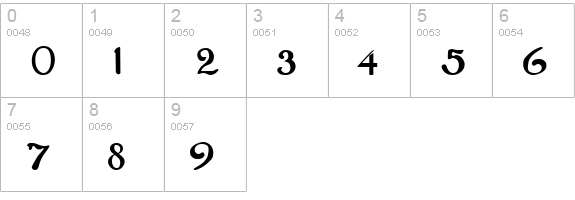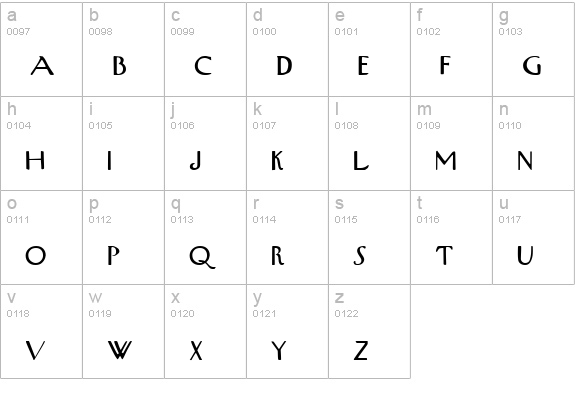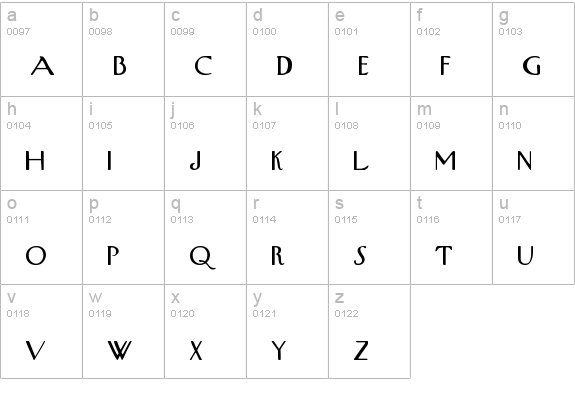
Upper-WestSide Regular is the standard, neutral variant in the Upper typeface family \xE2\x80\x94 well suited to general body text, paragraphs, and standard typographic work.
The Upper-WestSide Regular font is a classic and elegant typeface that exudes sophistication and charm. Its sleek and refined design makes it perfect for a variety of projects, from branding and logos to invitations and headlines. With its clean lines and balanced proportions, this font effortlessly captures attention and adds a touch of class to any design. What sets Upper-WestSide Regular font apart is that it is freely available to download at FontsMarket.com. This means that you can easily access this stunning typeface without any cost or limitations. Whether you are a professional designer or a hobbyist, having the ability to use this font for free opens up endless creative possibilities. The versatility of Upper-WestSide Regular font is truly remarkable. Its timeless appeal makes it suitable for both modern and vintage-inspired designs. It pairs beautifully with both serif and sans-serif fonts, allowing you to create visually stunning combinations. Whether you are working on a website, a print project, or even a personal project, this font is sure to elevate your designs to new heights. The attention to detail in the Upper-WestSide Regular font is evident in every letterform. Each character is meticulously crafted to ensure optimal legibility and visual harmony. The proportions are carefully balanced, resulting in a font that is pleasing to the eye and easy to read. The clean lines and gentle curves give the font a sense of elegance and sophistication, making it a perfect choice for high-end designs. With its wide range of glyphs and characters, Upper-WestSide Regular font is suitable for multilingual projects. Whether you need to include accents, diacritical marks, or special characters, this font has you covered. Its extensive character set ensures that you can create professional-looking designs in any language. In conclusion, the Upper-WestSide Regular font is a stunning typeface that combines classic elegance with modern versatility. Its sleek design and attention to detail make it a perfect choice for a wide range of projects. And the best part? It is freely available to download at FontsMarket.com. So why wait? Enhance your designs with this timeless font today!